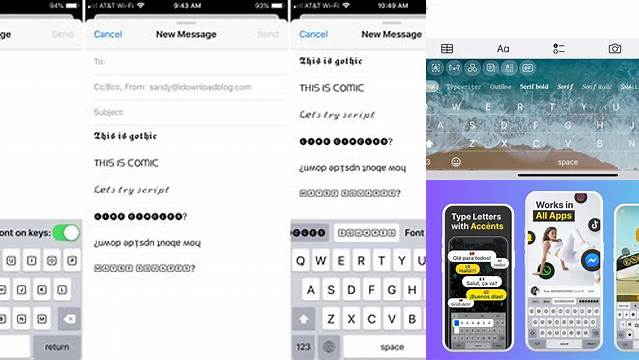
Best Keyboard Fonts Apps For Your IPhone
Hey guys! Ever get tired of the same old boring keyboard font on your iPhone? Wanna spice things up and add a little flair to your texts and messages? Well, you've come to the right place! We're diving deep into the world of keyboard fonts apps for iPhone, and trust me, there's a whole universe of cool fonts just waiting to be discovered. Let's get started and find the perfect font to match your style!
1. Stylish Fonts for iPhone: A Quick Overview
Okay, so first things first, what exactly are we talking about when we say "stylish fonts"? Well, stylish fonts are basically alternative keyboard fonts that can add a unique touch to your texts and messages. Instead of the default iOS font, you can use a variety of different styles, from cursive and handwritten fonts to bold and quirky ones. Think of it as giving your keyboard a makeover!
These apps usually work by creating custom keyboards that you can enable in your iPhone's settings. Once enabled, you can switch between your regular keyboard and the stylish font keyboard whenever you want. It's super easy, and it's a fantastic way to express yourself through your messages. Using stylish fonts is a great way to make your messages stand out and show off your personality.
2. Custom Keyboard Fonts: Why They Matter
Now, you might be wondering, “Why bother with custom keyboard fonts?” That’s a fair question! While the default iOS keyboard is perfectly functional, it's not exactly the most exciting thing to look at. Custom keyboard fonts let you inject some personality into your everyday communications. They can help you express your mood, your style, and even your sense of humor. Plus, they can make your messages more visually appealing and engaging.
Imagine sending a birthday message in a fun, bubbly font, or a heartfelt note in a beautiful script font. Custom keyboard fonts can add an extra layer of emotion and impact to your words. And let's be honest, sometimes a change of font is all it takes to make your messages feel a little less… boring. They can also be super useful for social media posts, captions, and even creative projects. If you're looking to enhance your digital communication, then exploring custom keyboard fonts is definitely worth it.
3. Top Font Apps for iPhone: A Head-to-Head Comparison
Alright, let's get down to the nitty-gritty and talk about some specific font apps for iPhone. There are tons of options out there, but don't worry, we're here to help you sort through them. We'll be doing a head-to-head comparison of some of the top font apps, looking at things like font selection, ease of use, features, and pricing. This way, you can get a clear picture of what each app offers and choose the one that's right for you.
We’ll be covering popular choices like Fonts, FancyKey, and Kika Keyboard, among others. Each of these font apps comes with its own unique set of fonts and features, so it’s important to weigh your options. Some apps offer a huge library of fonts, while others focus on more specialized styles. Some apps are free with in-app purchases, while others are subscription-based. Choosing the right app depends on your individual needs and preferences, so let’s dive in and compare!
4. Free Font Keyboards: Are They Worth It?
So, the big question: are free font keyboards worth it? Well, the answer is… it depends! There are definitely some great free font keyboard options out there, but it's important to be aware of the potential drawbacks. Free apps often come with limitations, such as a smaller selection of fonts, ads, or even privacy concerns. It’s crucial to do your research and choose a free font keyboard from a reputable developer.
On the bright side, free font keyboards are a fantastic way to try out different styles and see if using custom fonts is something you enjoy. Many free apps offer a decent selection of fonts to get you started, and some even have daily font updates or special promotions. Just be sure to read the reviews, check the app permissions, and be mindful of any in-app purchases or subscriptions that might be offered. With a little caution, you can find a free font keyboard that perfectly suits your needs.
5. Paid Font Keyboards: What You Get for Your Money
Okay, so what about paid font keyboards? What do you get for your money? Generally, paid font keyboards offer a more extensive range of fonts, fewer ads (or none at all), and often some extra features like custom themes, GIF support, or even built-in translators. If you're serious about using stylish fonts regularly, a paid app might be a worthwhile investment. They usually provide a much smoother and more comprehensive experience.
Paid font keyboards often have better customer support and more frequent updates too, ensuring that you're always getting the latest and greatest features. The font quality is also usually higher, and you're less likely to encounter privacy issues or annoying ads. So, if you're looking for a premium experience and a vast selection of fonts, consider exploring some of the paid options available. You might be surprised at how much value you can get.
When using custom fonts, choose fonts that are easy to read, especially for longer texts. Avoid overly decorative or ornate fonts that can strain the eyes. Limit the number of fonts you use in a single document or design to two or three at most. Pay attention to font sizes and spacing to ensure that your text is legible and visually appealing. Following these best practices will help you create designs that are both stylish and effective. Remember, readability is key!